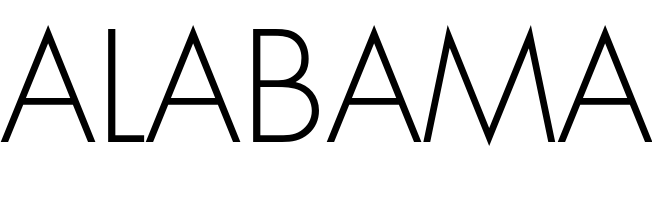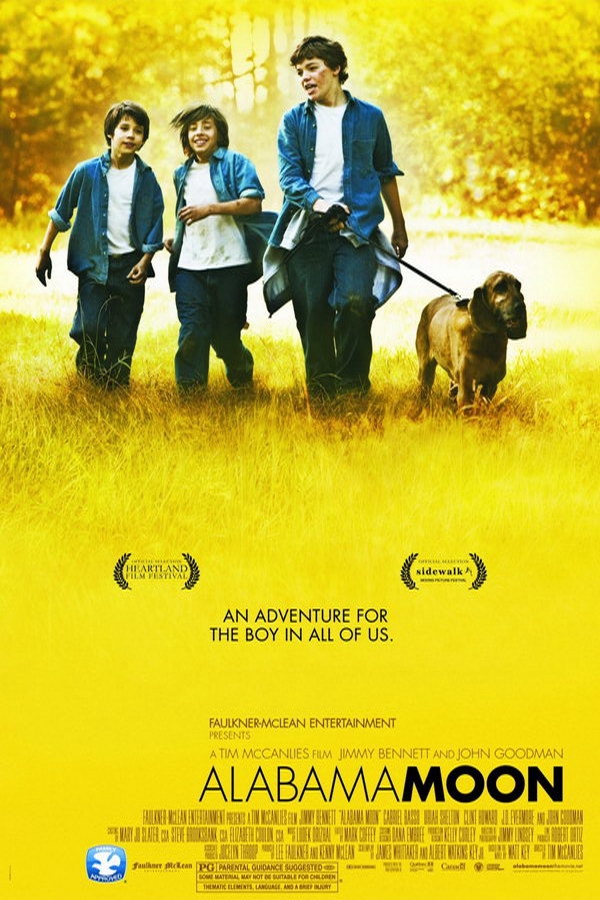
Alabama Moon Font
AdventureAlabama Moon is a 2011 American family adventure film based on the novel of the same name by Watt Key. The film follows a young boy named Moon Blake, who grows up in the Alabama woods with his father, and must learn to survive on his own after his father passes away.
The title of the movie, "Alabama Moon," on the poster is presented in Futura font. The word "Alabama" appears in Futura Light, while "Moon" is in Futura Bold.